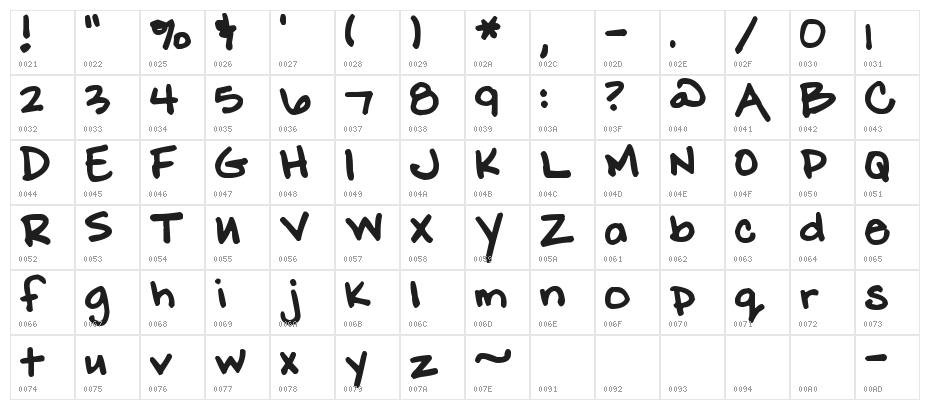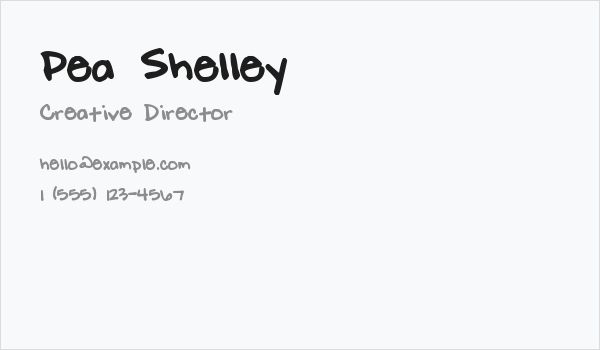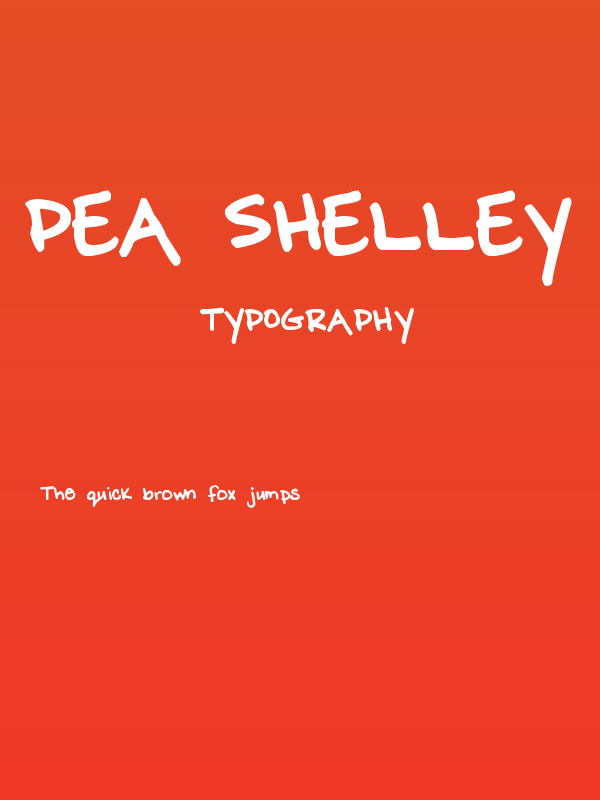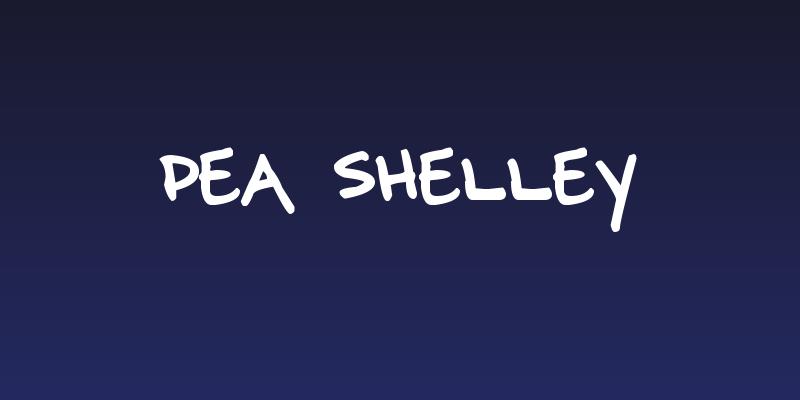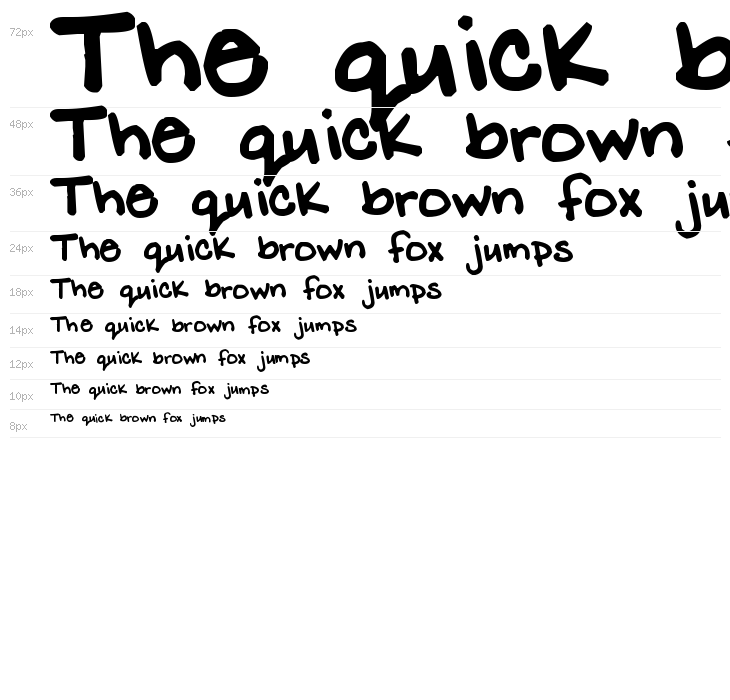
Pea Shelley Font
Pea Shelley Description
This playful and informal font features a handwritten style with a casual, friendly appearance. The letters are slightly irregular, giving it a personal touch reminiscent of a quick note or a casual message. The strokes are bold and rounded, providing a sense of warmth and approachability. The uppercase and lowercase letters maintain a consistent style, with a slight slant that adds to the dynamic feel. Numbers and special characters are crafted with the same playful essence, making this font versatile for various creative projects.
| Proposed Projects | Ideal for greeting cards, children's books, casual invitations, and playful branding. |